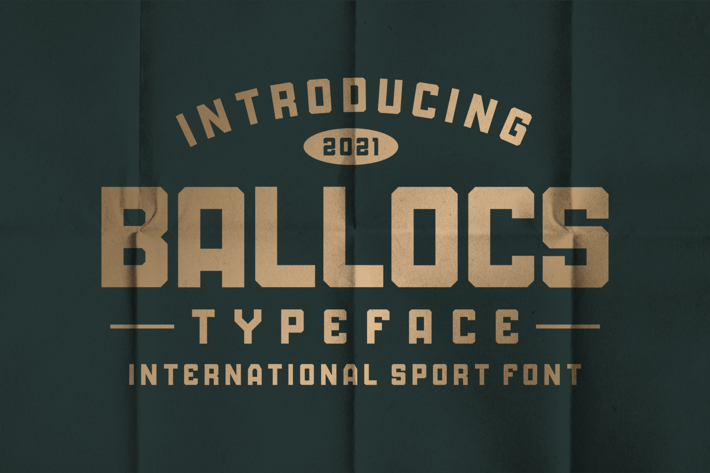
BALLOCS SPORT TYPEFACE
Inspired by font blocks and sports-related things, suitable for use as logos, headlines, master signs, scoreboards and others.